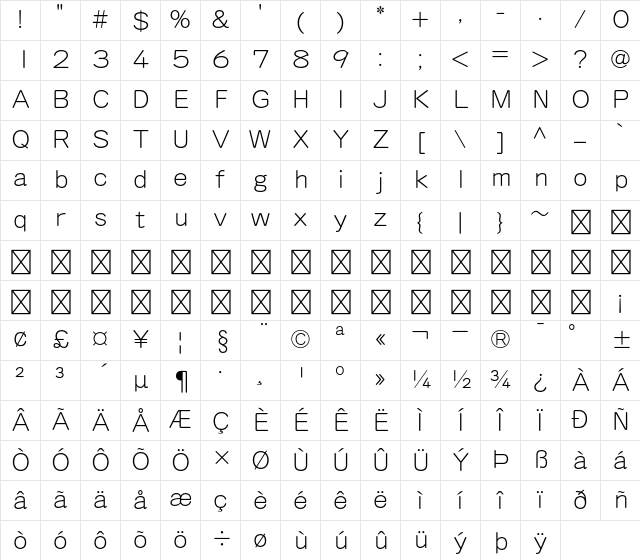
G-OTF Jo Kyoukasho ICA ProN L Free Font
G-OTF Jo Kyoukasho ICA ProN L
Style: L
Designer: Morisawa and Company Limited.
Design Context for G-OTF Jo Kyoukasho ICA ProN
G-OTF Jo Kyoukasho ICA ProN is a composed and adaptable typeface that performs quietly and consistently across a wide range of design contexts.